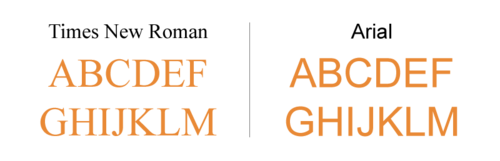
Fonts Similar To Times New Roman But Wider
Times new roman is therefore a serif font, as.
Finalia dt condensed bold suggested by camc11. Download font times new roman font alternatives. The few minor changes that have been made are in pursuit of widening the letters and the spaces between letters without changing their vertical heights at all.
The manhattan serif font claims to be a classy serif, but it is very simple in essence, which is probably a quality that makes it classy in the first place. But recently, it has seen a resurgence on the web and has fallen back in favor with designers. It fell out of popularity years ago due to its overuse and the rise of other system fonts such as georgia.
Times new roman alternatives you can do better. Sep 11, 2012 at 20:13. You may have heard the term before without even realising what it meant.
This is one of the best fonts similar to times new roman because it can be used in many cases and is compatible with many other fonts. Georgia is very similar to the times new roman font, except a bit wider. After its popularity, its modern versions released including times new roman world.
Army of darkness suggested by jerseygirl. Times new roman gets its name from the times of london, the british newspaper. Mschf designed the font by tweaking the free font nimbus roman no.